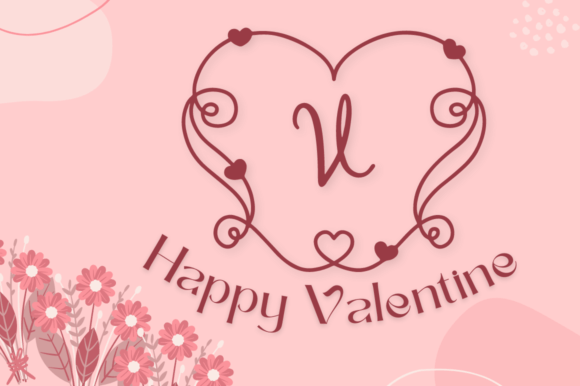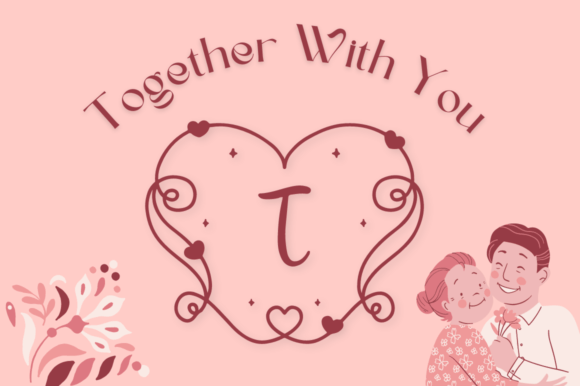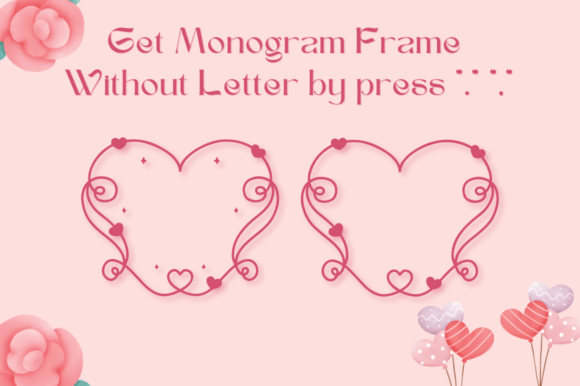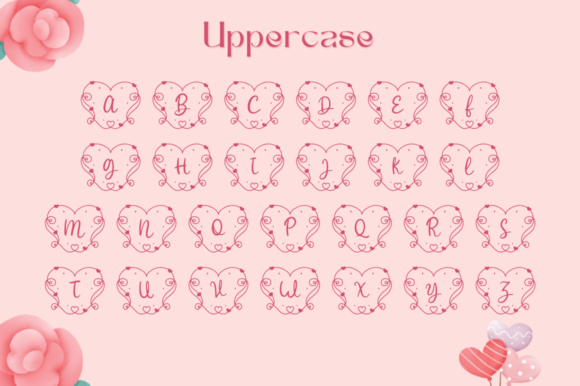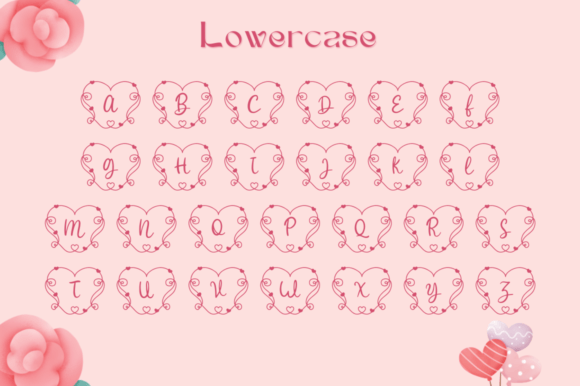
Introducing Curly Valentine Monogram Font: The Perfect Addition to Your Design Collection
Are you on the hunt for a font that exudes love, charm, and playfulness? Look no further than the Curly Valentine Monogram Font! This adorable decorative font is sure to capture your heart and become a staple in your design toolkit. In this article, we’ll dive into the features, benefits, and uses of Curly Valentine Monogram Font, and explore how it can elevate your designs for special occasions, business branding, and more.
A Cute and Versatile Font for Every Occasion
Curly Valentine Monogram Font is a delightful addition to any design project. Its curly, whimsical design makes it perfect for creating lovely designs for special occasions such as weddings, anniversaries, and Valentine’s Day. But it’s not just limited to personal projects – this font is also ideal for business designs, logos, branding, social media posts, and wedding cards.
One of the standout features of Curly Valentine Monogram Font is its versatility. It comes in two styles, which can be easily switched between by changing between uppercase and lowercase letters. This means you can create a range of different designs using just one font, making it a great value for designers and crafters.
Key Features of Curly Valentine Monogram Font
- Cute and decorative design: The Curly Valentine Monogram Font features a playful, curly design that’s sure to add a touch of whimsy to your projects.
- Two styles in one: Switch between uppercase and lowercase letters to access two different styles, giving you more flexibility in your designs.
- Perfect for special occasions: Use Curly Valentine Monogram Font to create beautiful designs for weddings, anniversaries, Valentine’s Day, and more.
- Suitable for business branding: This font is also ideal for business designs, logos, and branding, adding a touch of personality to your company’s visual identity.
Uses for Curly Valentine Monogram Font
So, how can you use Curly Valentine Monogram Font in your designs? Here are a few ideas to get you started:
- Wedding cards and stationery: Create beautiful wedding cards, invitations, and stationery with Curly Valentine Monogram Font.
- Social media posts: Add a touch of whimsy to your social media posts with this adorable font.
- Logos and branding: Use Curly Valentine Monogram Font to create a unique and memorable logo for your business.
- Party decorations: Create eye-catching party decorations, such as banners and garlands, with this fun font.
Tips for Using Curly Valentine Monogram Font
To get the most out of Curly Valentine Monogram Font, here are a few tips to keep in mind:
- Experiment with different colors: Try pairing Curly Valentine Monogram Font with different colors to create a unique and eye-catching design.
- Mix and match with other fonts: Combine Curly Valentine Monogram Font with other fonts to create a visually interesting design.
- Use it sparingly: While Curly Valentine Monogram Font is adorable, it can be overwhelming if overused. Use it sparingly to create a balanced design.
In conclusion, Curly Valentine Monogram Font is a delightful addition to any design collection. Its cute and versatile design makes it perfect for a range of projects, from special occasions to business branding. With its two styles and easy-to-use design, this font is sure to become a favorite among designers and crafters. So why not fall in love with Curly Valentine Monogram Font and see what beautiful designs you can create?